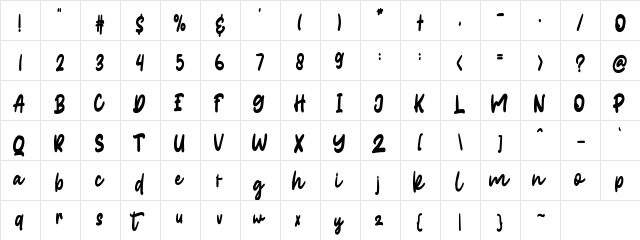
Burgundy Script
Foundry Crump Hand
Burgundy Script
StyleScript
FoundryCrump Hand
DesignerStefie Justprince
Design Context for Burgundy Typeface
Burgundy flows with the natural rhythm of handwritten lettering, making it ideal for designs that call for warmth and personal expression.
Font Pairing: Combine Burgundy with a simple geometric sans for maximum contrast — the tension between flowing curves and clean structure is a classic typographic pairing.
Pro Tip: Use Burgundy for short runs of text — names, titles, or taglines. Extended body copy in script faces tires the eye quickly.